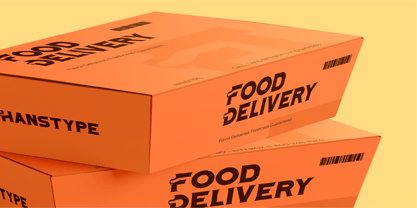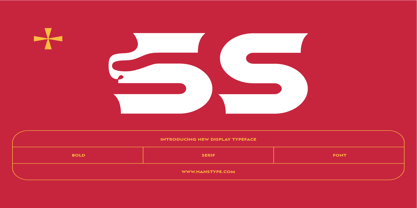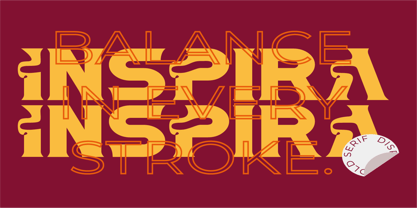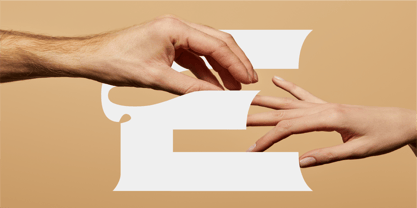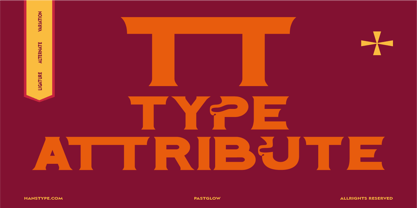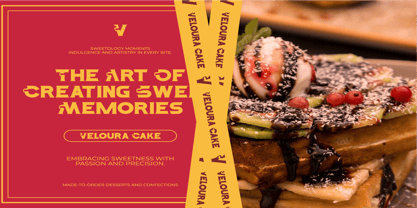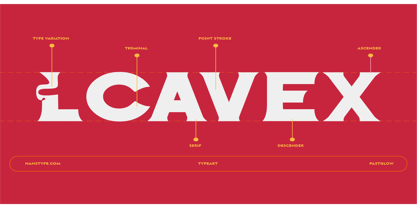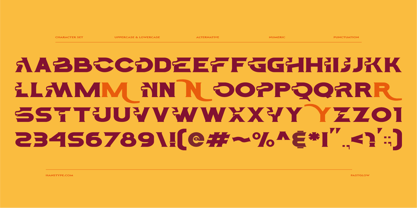
Pastglow
by Hanstype
Pastglow is a retro display font that blends vintage elements with a modern touch. Its distinctive feature lies in the unique curves found in uppercase letters, creating a dynamic and playful feel without losing its classic charm. Each letter is crafted with balanced proportions and smooth curves that evoke a strong retro vibe, making it ideal for design projects that aim to evoke nostalgia, such as posters, logos, or packaging design. This font style draws attention with its uniqueness while maintaining high readability, making it a perfect choice for eye-catching headlines and bold branding elements.